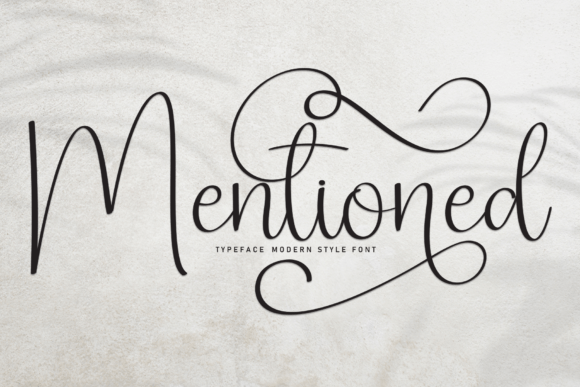
**Introducing Mentioned: The Quintessential Script Font for Fashion Bloggers**
In the realm of fashion blogging, where style and aesthetics reign supreme, the font you choose for your content holds immense power. It sets the tone, conveys your brand's personality, and leaves a lasting impression on your readers. Allow us to introduce Mentioned, a remarkable script font meticulously crafted to elevate your fashion blog to new heights of sophistication and allure.
**A Symphony of Handwritten Elegance**
Mentioned is a captivating handwritten font that exudes timeless beauty and effortless charm. Each letter is meticulously crafted with a unique and graceful touch, evoking the artistry and personal touch of a handwritten note. With its delicate curves, flowing lines, and elegant swashes, Mentioned adds a touch of sophistication and refinement to every word you write.
**Crafted for the Fashion-Forward**
Mentioned is not just any font; it's a fashion statement in itself. Every curve, every stroke, and every detail is meticulously designed to complement the world of fashion. Whether you're showcasing the latest trends, sharing style tips, or simply expressing your passion for fashion, Mentioned provides the perfect backdrop to let your words shine.
**Captivating Logos and Branding**
Make a statement with Mentioned and create logos and branding that leave an unforgettable impression. The font's inherent elegance and timeless appeal will elevate your brand's identity, making it stand out from the crowd. Imagine your fashion blog's logo adorned with Mentioned, exuding sophistication and inviting readers to explore your stylish world.
**Mesmerizing Quotes and Sayings**
Fashion is more than just clothing; it's a form of self-expression and a reflection of one's personality. Use Mentioned to highlight inspiring quotes, share fashion mantras, or simply express your thoughts on style and trends. The font's enchanting appearance will give your words added depth and resonance, captivating your readers and leaving them wanting more.
**Unleash Your Creativity**
With Mentioned as your creative companion, the possibilities are endless. Let your imagination run wild as you craft eye-catching social media posts, design stunning fashion graphics, or create personalized invitations for your fashion events. Mentioned effortlessly complements images, photographs, and other design elements, allowing you to create visually stunning content that captures attention and sparks engagement.
**Join the Fashion-Forward Elite**
Mentioned is more than just a font; it's a gateway to a world of fashion and style. Embrace Mentioned and watch as your fashion blog transforms into a captivating online destination, attracting a loyal following of fashion enthusiasts who appreciate your impeccable taste and discerning eye for style.